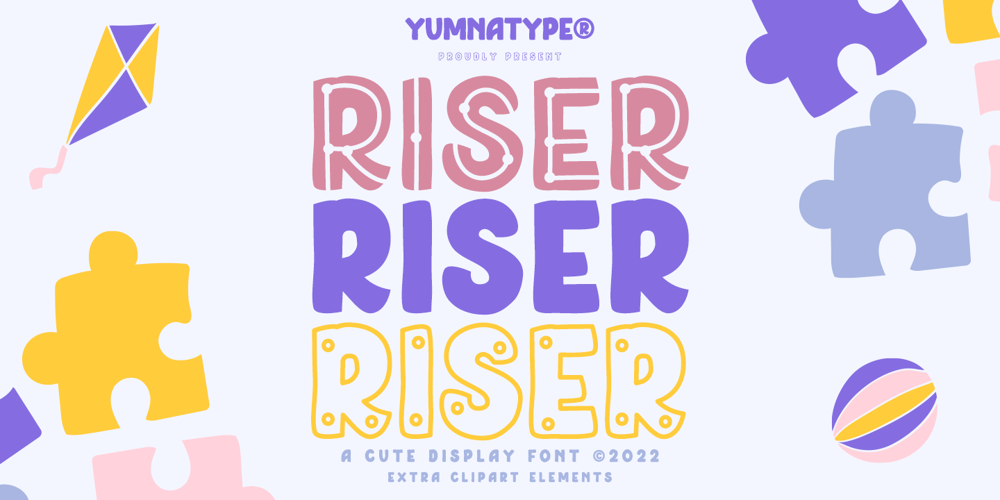
Riser
Riser font
Riser Font Family was designed by Donis Miftahudin and published by Yumna Type. Riser contains 2 styles and family package options. Riser is an uppercase display font. It projects warm, cute, and slightly futuristic aesthetic. It is a cleanly designed outline font that’s easy to read and will look great in a variety of header and title sizes. This font becomes more special with illustrations as the extras.Features: Ligatures Stylistic Sets Multilingual Supports Uppercase and lowercase PUA Encoded Numerals and Punctuation This font would looks great on your branding, logos, social media quotes, stickers, posters, wall art, merchandise, social media, and many more. Get more inspiration about how to use it by seeing the font preview.Thank you for purchasing our fonts. If you have any further questions, don’t hesitate to contact us. Happy Designing.